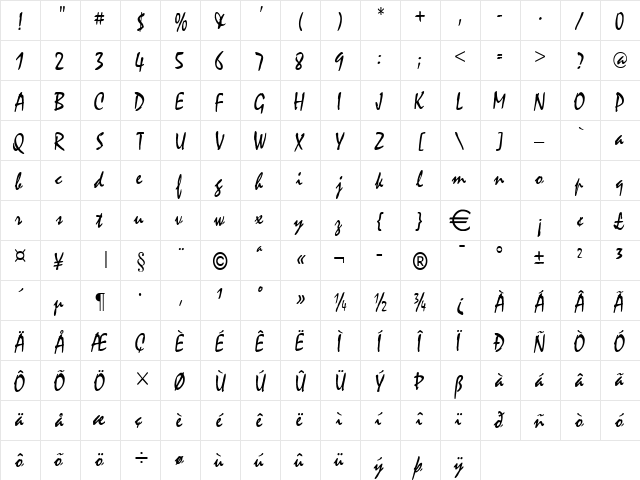
MysticCondensed Normal
Design Context for MysticCondensed Typeface
MysticCondensed is a composed and adaptable typeface that performs quietly and consistently across a wide range of design contexts. The condensed width makes it efficient for tight spaces without sacrificing legibility.